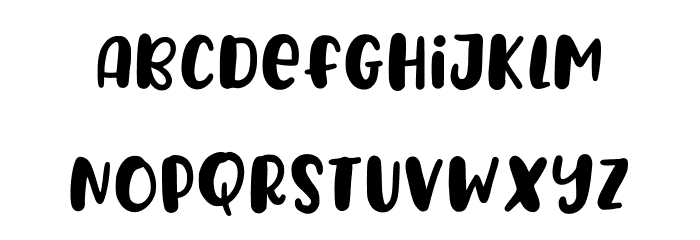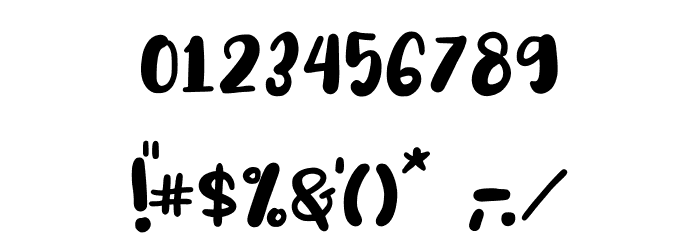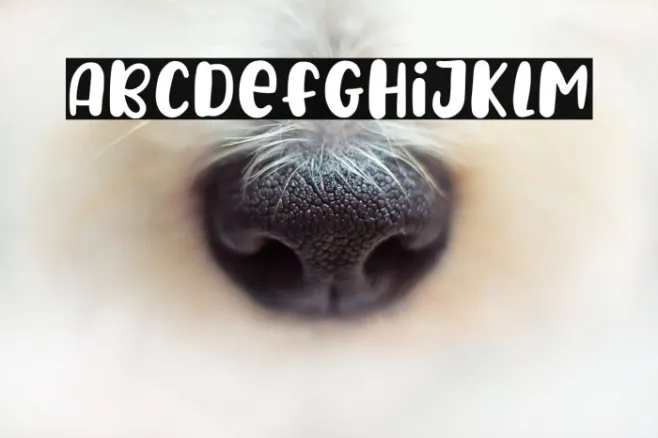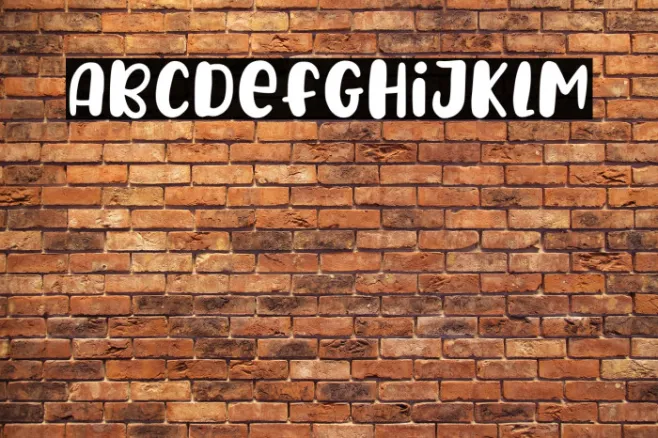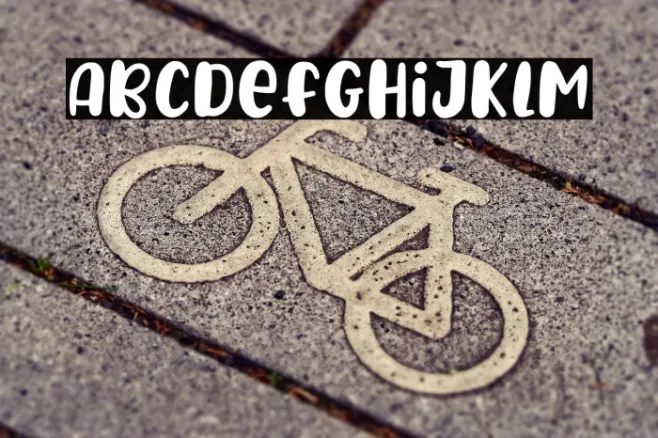
PlayCheerful Font
This playful and cheerful font features rounded, bold characters with a hand-drawn feel. The letters are slightly irregular, giving it a whimsical and friendly appearance. The uppercase and lowercase letters maintain a consistent style, with a slight tilt that adds to its casual charm. The numbers and special characters are designed to match the playful aesthetic, making it suitable for projects that require a fun and approachable look. The font's boldness ensures readability while its unique style makes it stand out.
A playful, bold, and hand-drawn font with a whimsical and friendly style.
- Font: PlayCheerful
- Proposed Projects: Ideal for children's books, playful branding, greeting cards, and creative posters.
- Category: Handwritten
- Overall Style: Playful